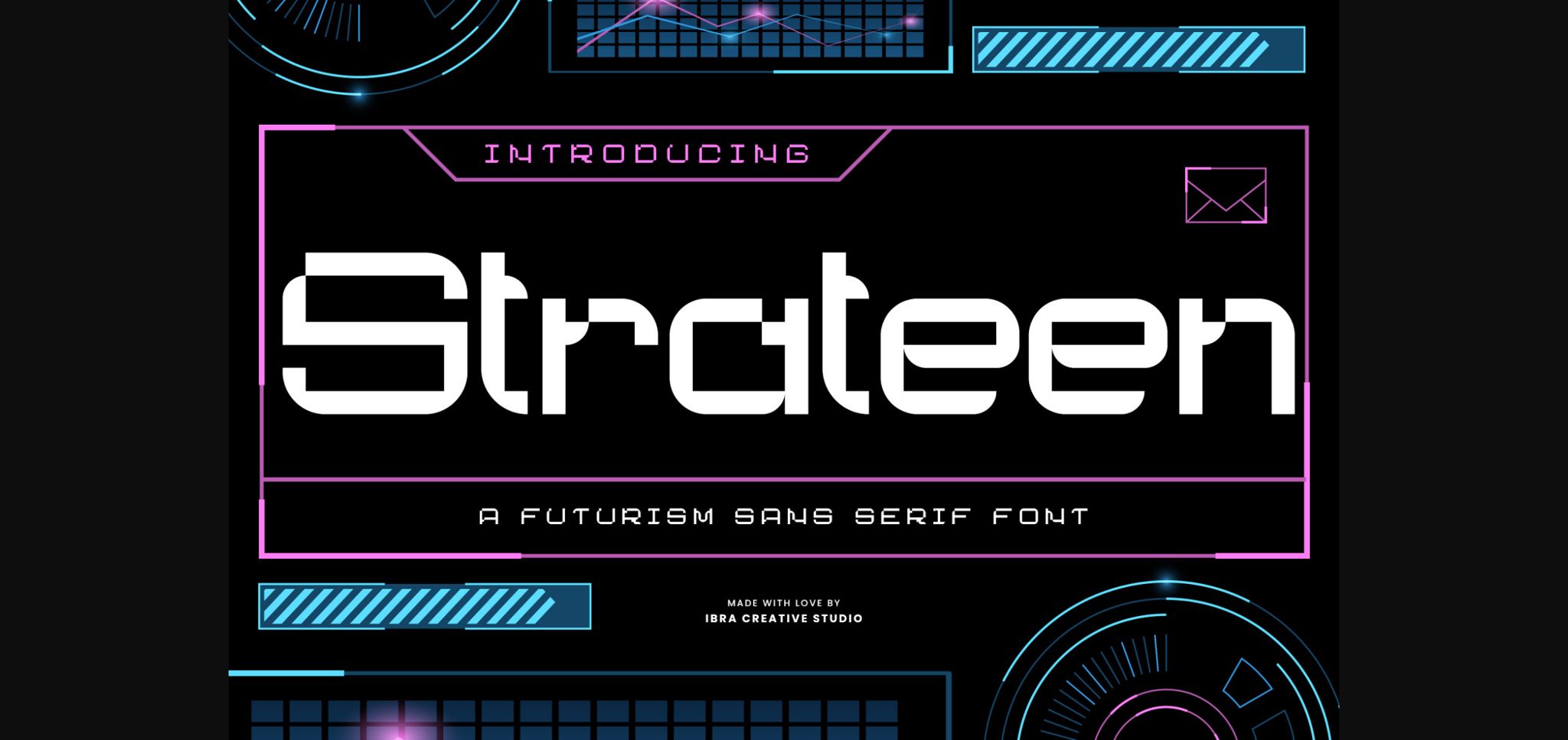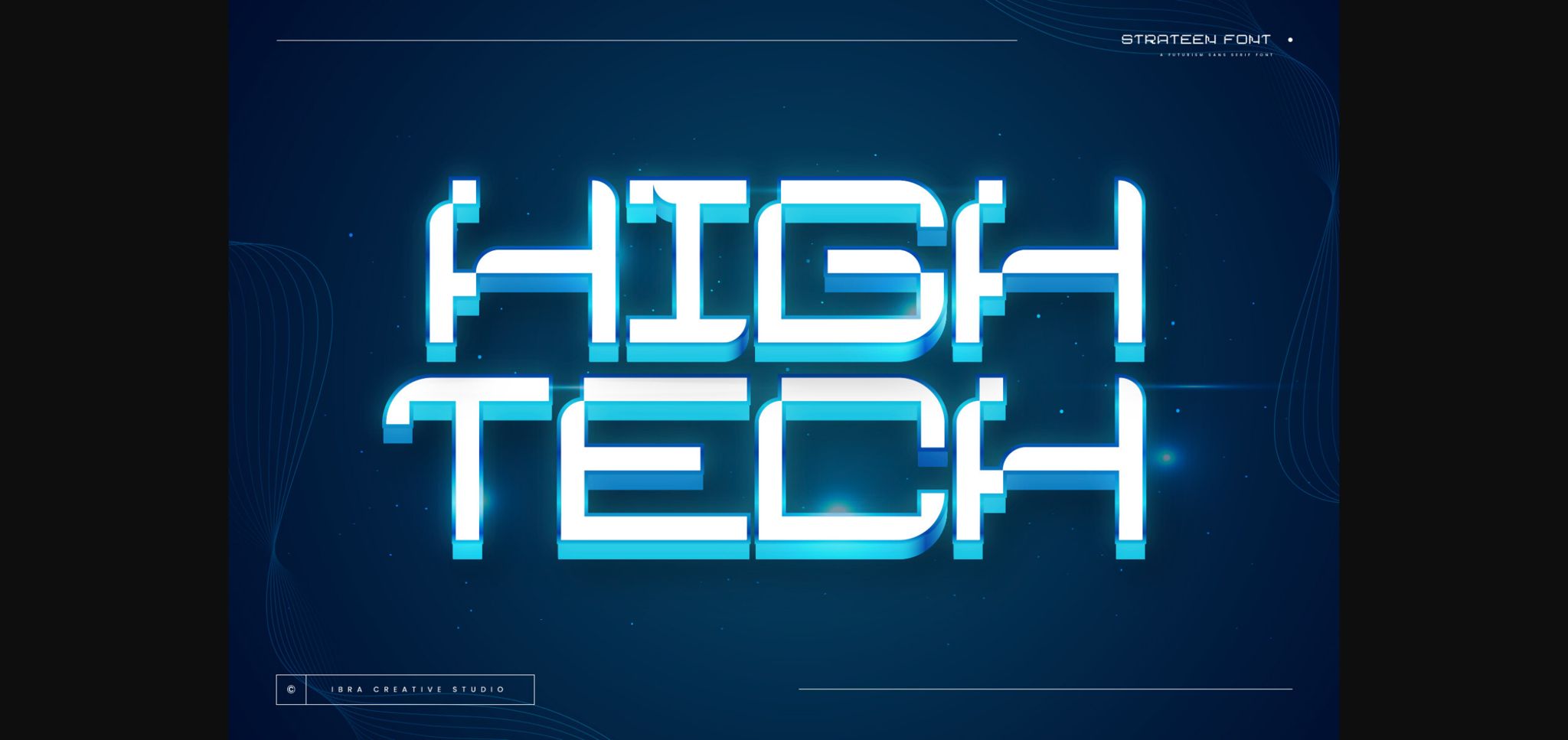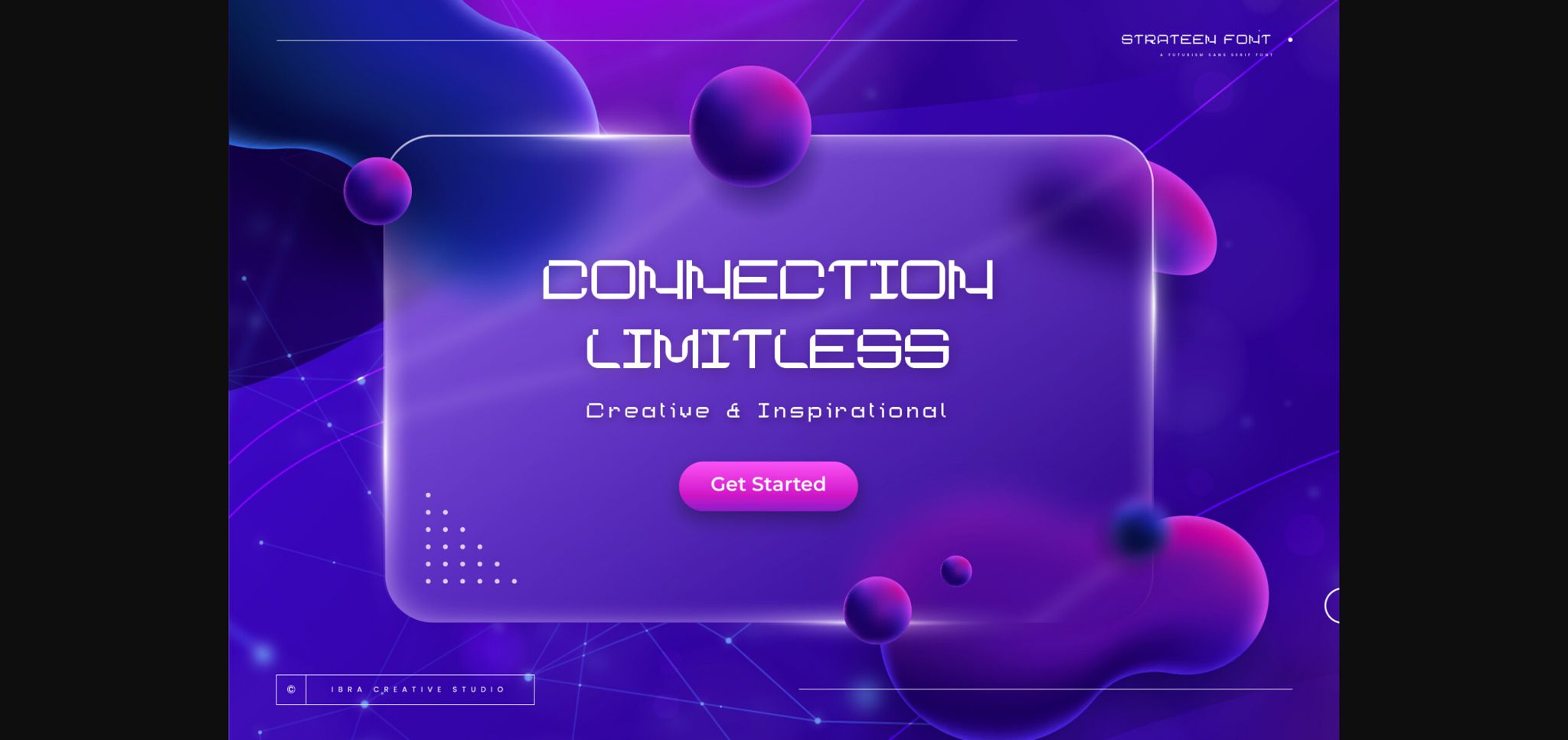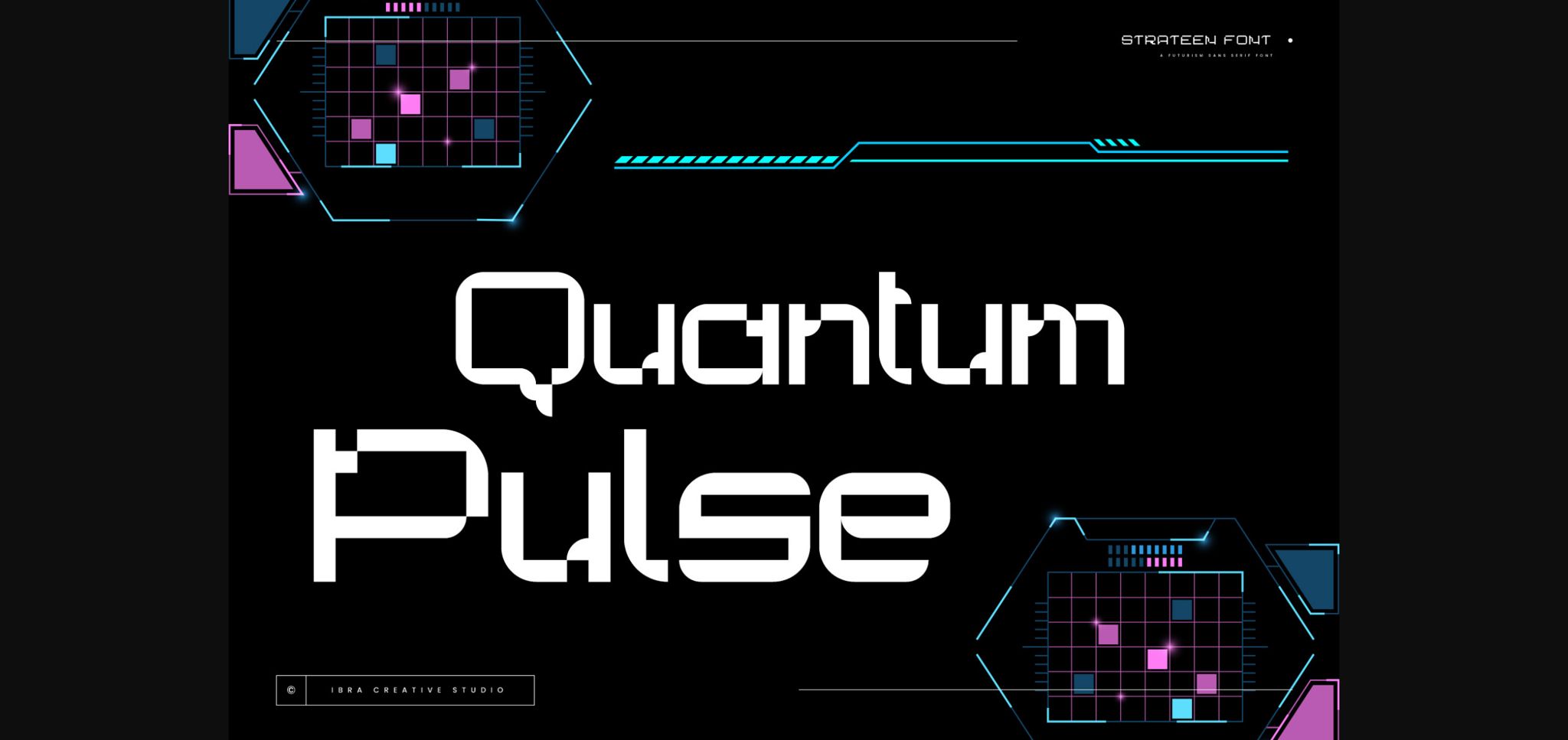
About Strateen Font
Strateen, a Futurism Sans Serif font, encapsulates the essence of contemporary design with its sleek and progressive aesthetic. Its clean, geometric lines and minimalistic strokes evoke a sense of modernity, making it ideal for projects that seek a futuristic and cutting-edge look. The typeface’s letterforms boast a harmonious balance between simplicity and sophistication, enhancing legibility while maintaining a distinctive personality.